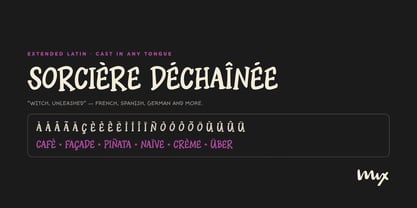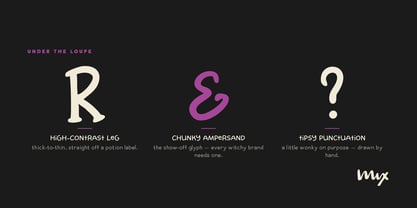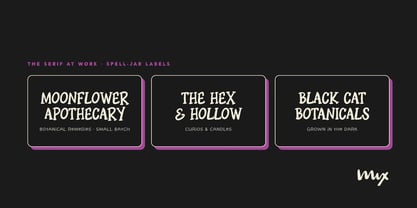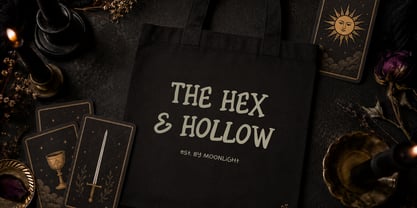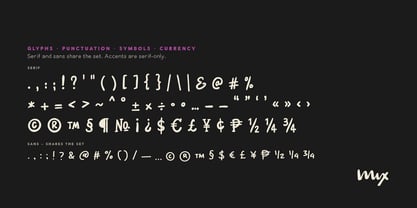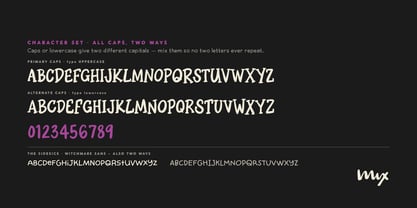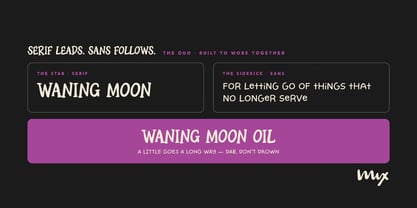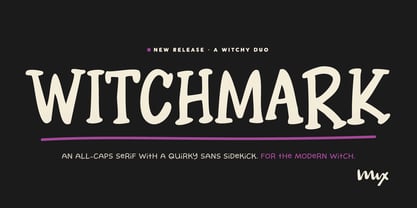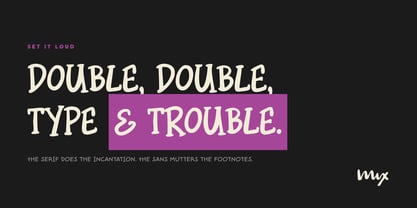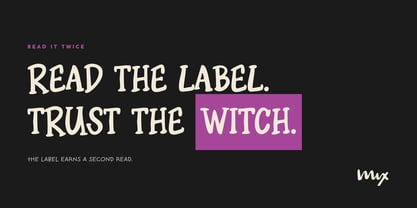
Mix Witchmark
The Mix Witchmark Font Family was designed by Mikko Sumulong and published by Mix Fonts. Mix Witchmark contains 2 styles and family package options. More about this family
Meet Mix Witchmark, a charming all-caps serif with a dash of spooky-cute energy and a quirky sans sidekick.
Brewed for the modern witchy designer, Mix Witchmark mixes vintage potion-label charm with crisp all-caps clarity. It's the font you'd use to label spell jars and your planner. It walks the line between eerie and elegant, made for Halloween invites, witchy quotes, cozy journals, and magical merch.
Need something a little weirder, softer, or sassier? The included quirky sans gives you a handwritten sidekick for pairing headlines and subtext without leaving the theme.
- Mix Witchmark Serif
- Mix Witchmark Sans
- Punctuation, numbers, and symbols in both
- Extended Latin and accented characters in the serif, with multilingual support
- Clean, crisp outlines made for print or digital
Whether you're crafting a digital coven kit, designing printable planner pages, or branding your witchy side hustle, Mix Witchmark brings all the character without the chaos.